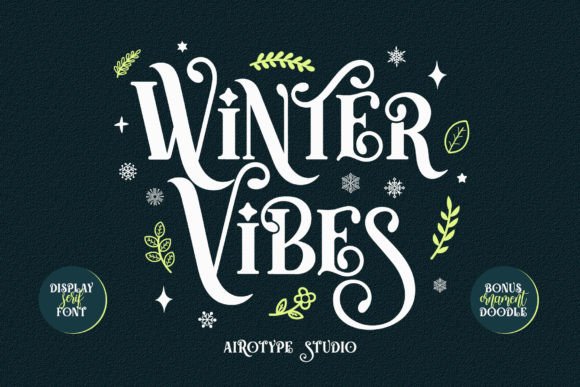
Introducing Winter Vibes Font, the ultimate choice for those seeking a modern and elegant display serif font. This captivating typeface, created by airotype, will transport you into a world of festive vibes, perfect for bringing your winter designs to life.
With Winter Vibes, you can add a touch of whimsy and fun to any project. Whether you're working on a wedding book, creating stunning invitations, or designing holiday-themed graphics, this font is here to elevate your creations to new heights.
One of the greatest features of Winter Vibes is its PUA encoding. This means that accessing all the captivating glyphs and ligatures has never been easier. Unleash your creativity and unlock a plethora of design possibilities with just a few clicks.
Embrace the enchanting aura of Winter Vibes Font as it effortlessly captures the essence of the holiday season. Its stylish and elegant curves will mesmerize your audience, evoking a sense of warmth and joy.
Picture yourself crafting exquisite wedding invitations with this font, instantly setting the tone for a magical celebration of love. Your guests will be captivated by the unique blend of elegance and playfulness that Winter Vibes brings to the table.
Not only is Winter Vibes Font visually stunning, but it also holds the power to evoke emotions. Imagine creating a heartwarming holiday card that instantly transports your loved ones to a cozy winter wonderland. The font's intricate details and intricate ligatures will make your message truly unforgettable.
Whether you're a professional designer or a passionate DIY enthusiast, Winter Vibes Font will be your ultimate ally. Stand out from the crowd with this captivating display serif font that effortlessly combines modernity and timeless charm.
Don't miss out on the opportunity to enhance your designs with Winter Vibes Font. Let your imagination run wild and watch as this font transforms your projects into captivating works of art.